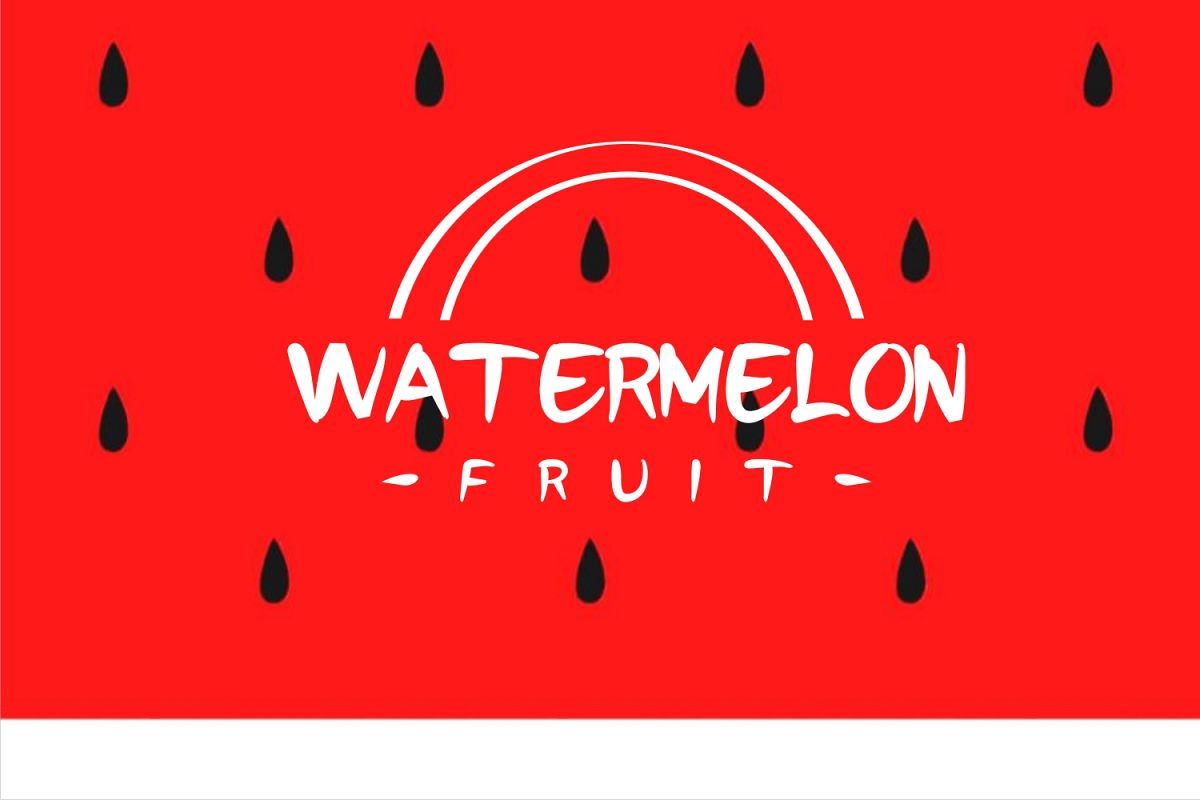
watermelonfont
watermelonfont-Regular
This font is suitable for your design. Unique and funny. Very suitable for logo, banner, and others.
watermelonfont